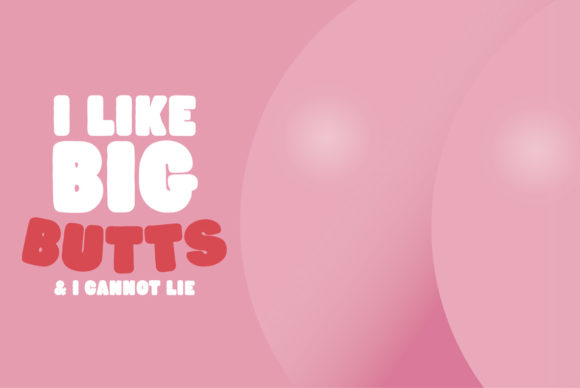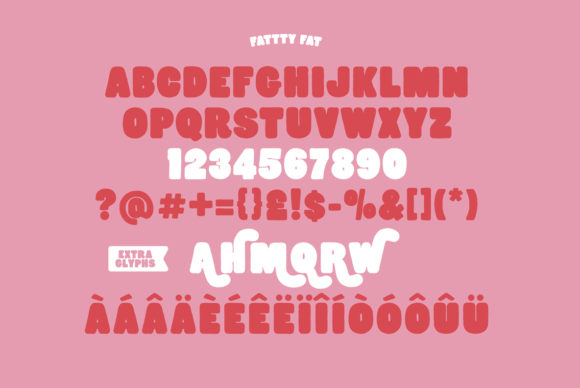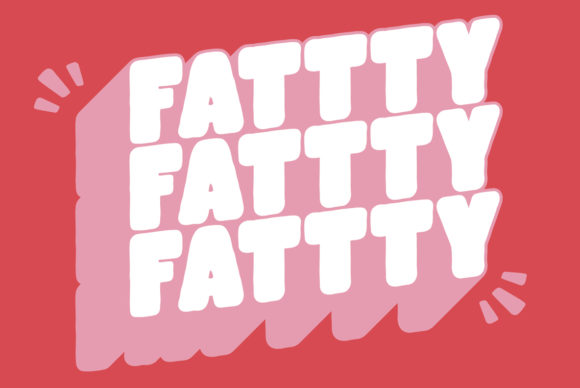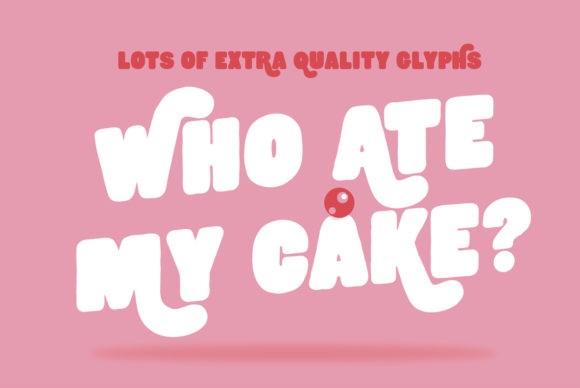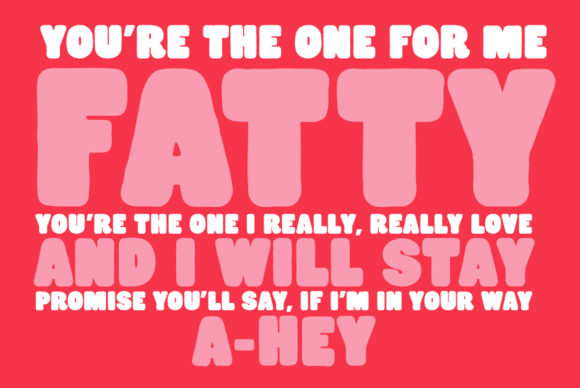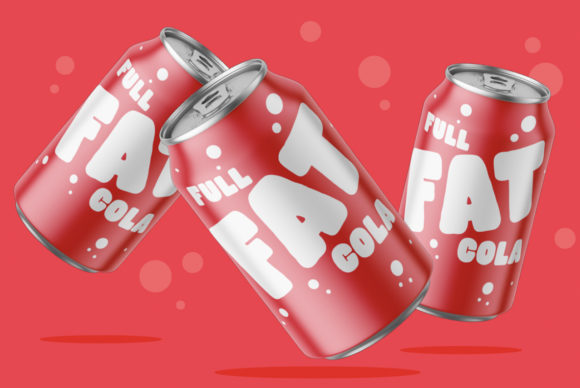
Fattty Font: The Ultimate Game-Changer for Your Creative Projects
Have you ever stared at a blank canvas, scribbled down a few ideas, and suddenly felt like something’s missing? That’s where the magic of typography comes in. A well-chosen font can elevate your design from bland to grand, and that’s exactly where the Fattty Font comes in – a fun, chunky lettered display font that’s sure to make your creative ideas pop.
Designed to be friendly and approachable, Fattty Font is the perfect addition to any project that needs a bit of personality. Whether you’re designing a logo, creating a social media campaign, or crafting a children’s book, this versatile font is sure to make your work stand out. As a designer, you know the importance of having the right tools at your disposal – and Fattty Font is definitely one to add to your toolkit.
Fattty Font Key Features
- Font Family: Fattty Font is a unique, hand-drawn sans-serif font family designed for headings and titles. It is available in various weights and styles, including Fattty, Fattty Bold, and Fattty Outline.
- Character Set: Fattty Font contains a wide range of characters, including Latin, Cyrillic, and Greek alphabets, as well as punctuation marks and symbols.
- Unique Characteristics: Fattty Font’s distinctive features include its rounded edges, smooth curves, and playful, hand-drawn feel, making it perfect for creative and artistic projects.
Fattty Font Review
First off, I want to say that I’m a fan of Fattty Font’s unique, rounded aesthetic ✨. It’s a bold, attention-grabbing typeface that’s perfect for headlines or titles where you want to make a statement. The font’s rounded edges also make it feel friendly and approachable, which is great for brands that want to convey a sense of warmth and welcoming.
Another thing that works well for Fattty Font is its versatility ✨. It comes in a range of weights, from light to bold, which means you can use it for everything from body text to display text. The font also works well in both digital and print applications, making it a great choice for designers who need a font that can adapt to different mediums.
Limitsations
- ⚠️ Limited character set: Fattty Font only includes a basic set of characters, which may not be sufficient for languages that require a wider range of characters.
- ⚠️ Limited language support: The font is not optimized for languages that require complex scripts or diacritical marks, which may lead to display issues.
- ⚠️ Not suitable for small text: Due to its bold and rounded design, Fattty Font may not be the best choice for small text or body text where legibility is crucial.
Overall, I think Fattty Font is a solid choice for designers who want a bold, attention-grabbing typeface that’s perfect for headlines or titles. However, it may not be the best choice for projects that require a wide range of characters, language support, or small text.
Getting the Most Out of Fattty Font
To get the most out of Fattty Font, try using it in bold or italic styles to add emphasis to your text. You can also experiment with different font sizes and colors to create a unique visual effect.
Fattty Font is commonly used for:
- Headings and titles
- Emphasis and highlighting
- Branding and logo design